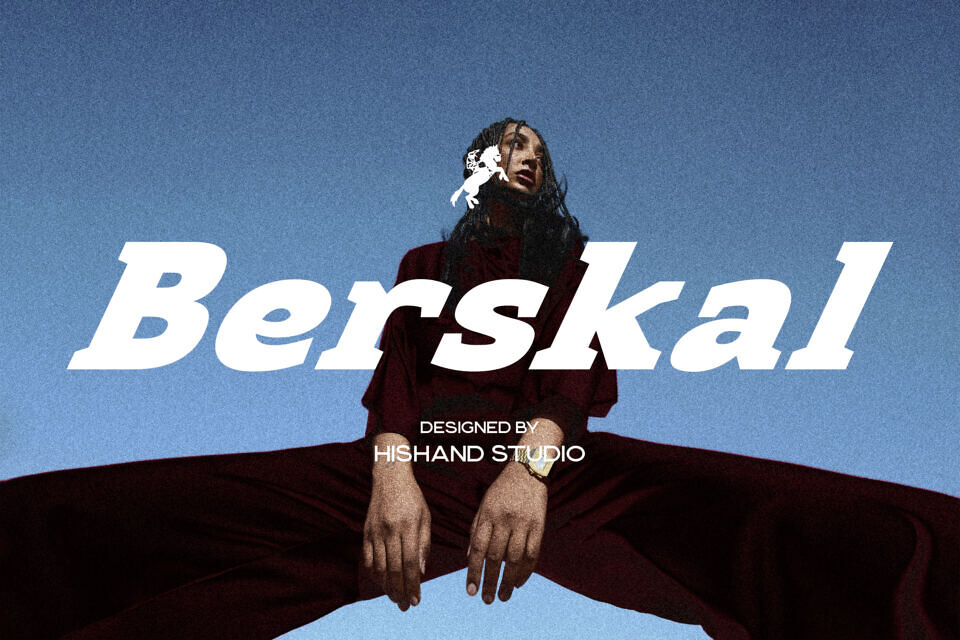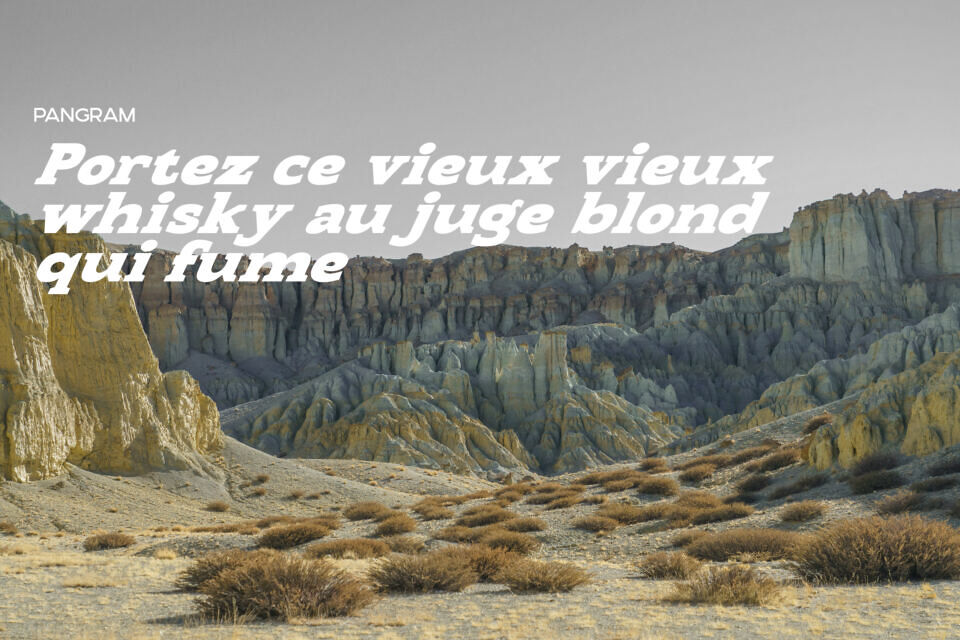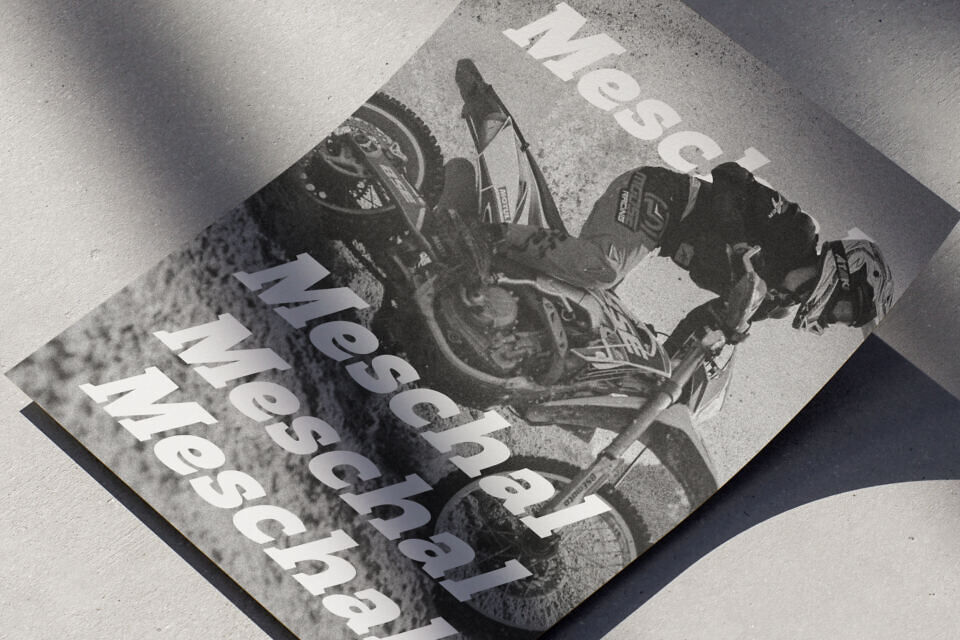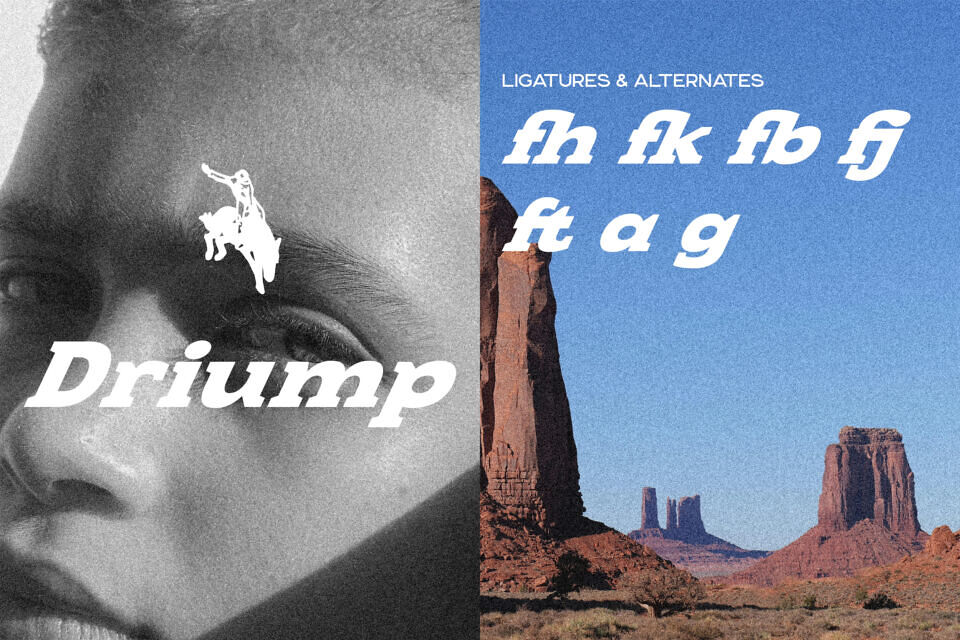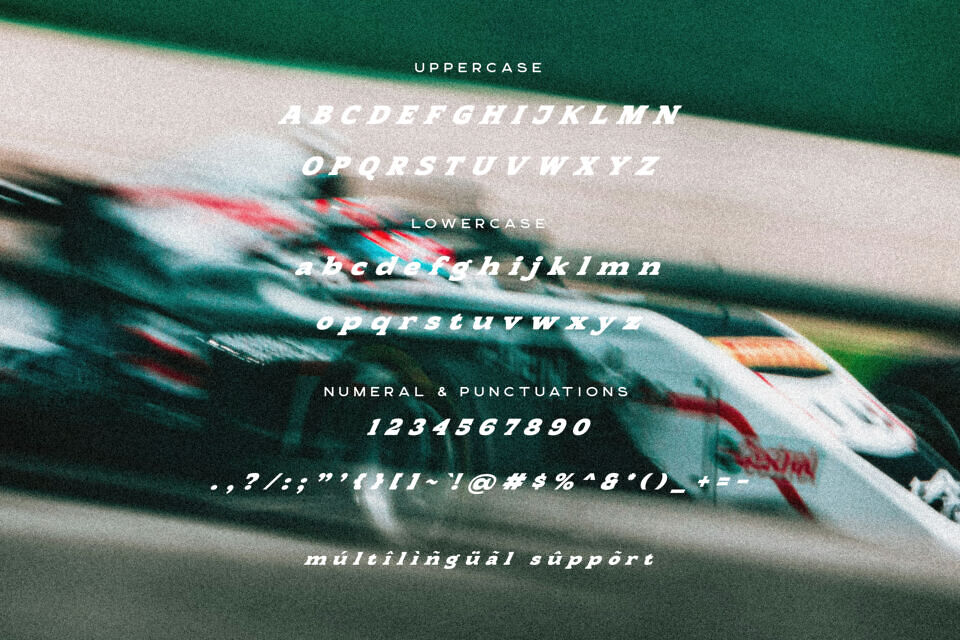
Berskal is a bold serif display font designed to deliver strength, character, and visual impact. Its powerful letterforms are built with confident proportions and distinctive angled details, creating a typeface that feels modern while remaining grounded in classic serif traditions.
The subtle slant in the structure adds movement and energy, giving the font a dynamic presence that immediately draws attention.